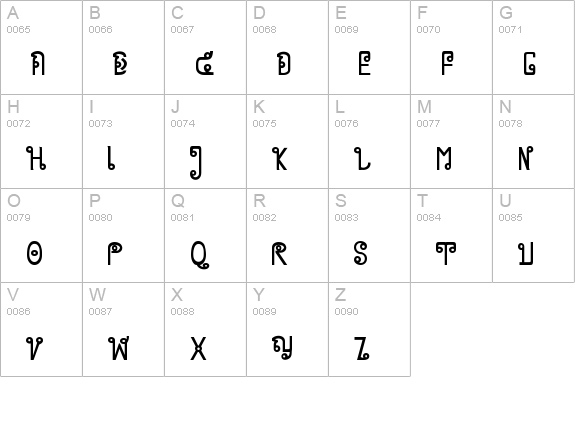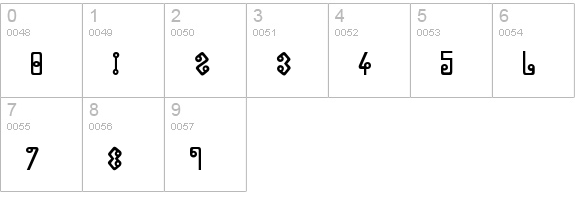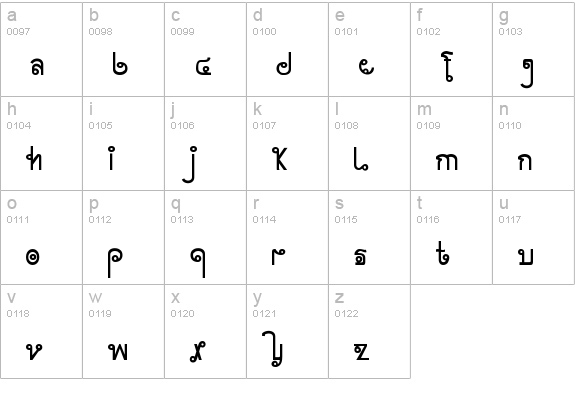
Cyclin font is a modern and stylish typeface that is perfect for a wide range of design projects. With its sleek lines and elegant curves, Cyclin font exudes sophistication and creativity. Whether you're designing a logo, poster, or website, this versatile font will add a touch of class to your work. One of the best things about Cyclin font is that it is completely free to download. You can easily get your hands on this beautiful font at FontsMarket.com, where you can find a wide selection of high-quality fonts for all your design needs. Give your projects a professional and polished look with Cyclin font today!